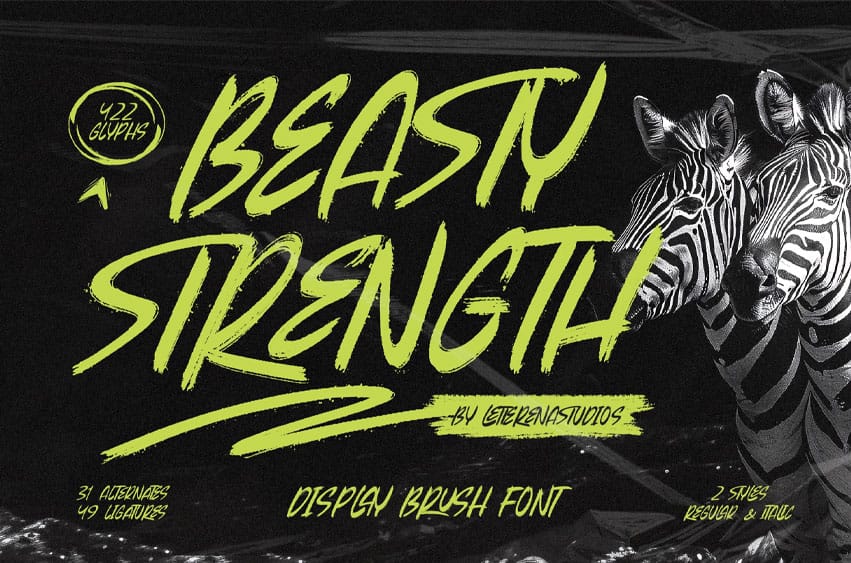
Beasty Strength Font
Beasty Strength Font is suitable to complement your digital and printed creative products.
This font is perfect for posters, social media posts, branding, personal projects, etc.